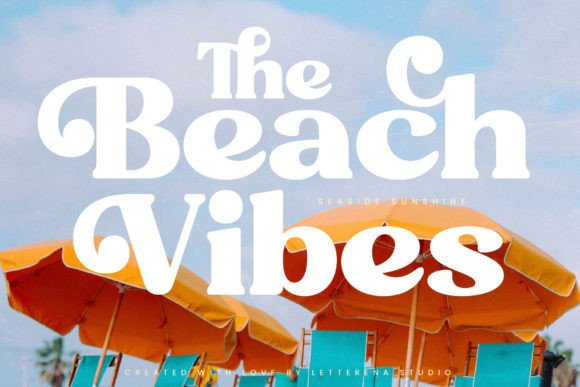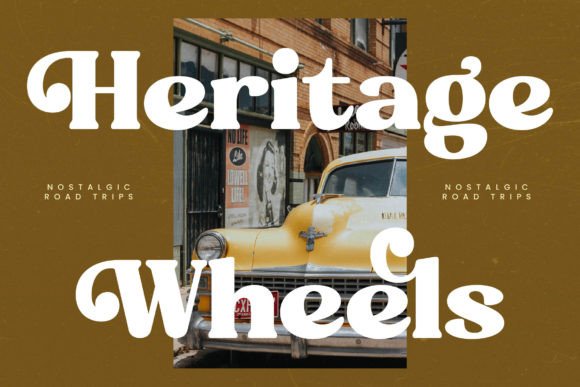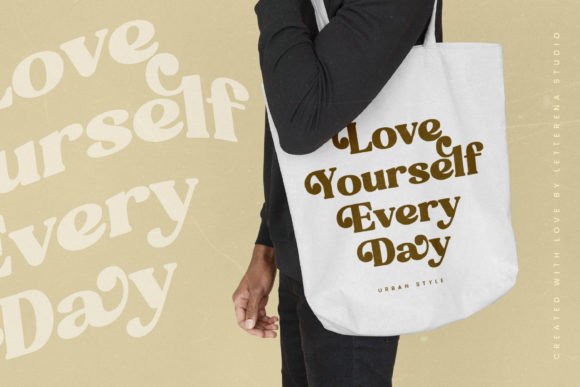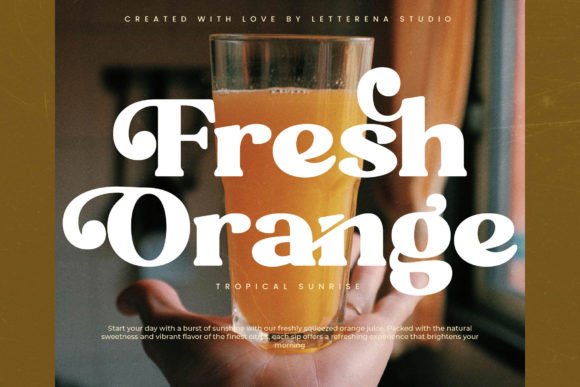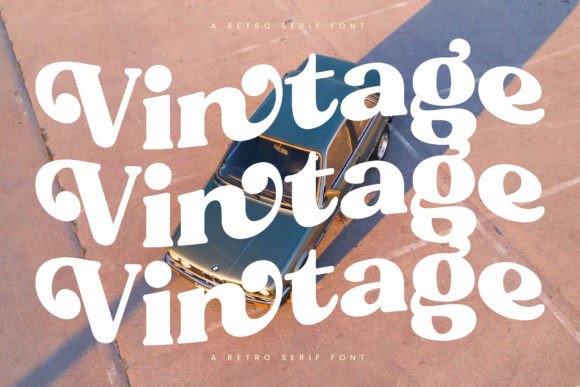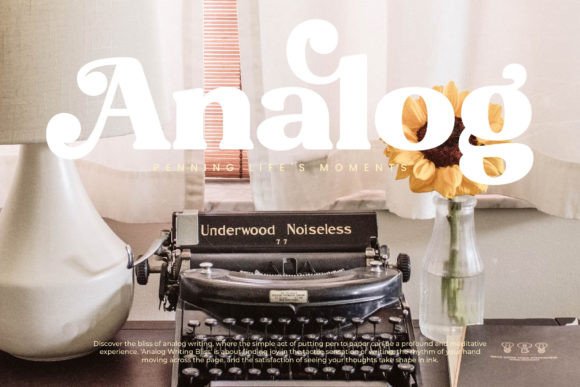
Introducing Angelic Pearl: The Ultimate Retro Serif Font for Luxury Projects
Are you a designer or crafter looking for a font that exudes luxury and sophistication? Look no further than Angelic Pearl, a stunning retro serif font from Letterena. This beautiful font is perfect for a wide range of projects, from logos and branding to homeware designs, product packaging, and more.
What is Angelic Pearl?
Angelic Pearl is a luxury serif font that boasts a unique retro aesthetic. Its elegant lines, intricate details, and classic serif structure make it an ideal choice for designers and crafters who want to add a touch of sophistication to their projects. Whether you’re working on a logo, brochure, or product packaging, Angelic Pearl is sure to impress.
Key Features of Angelic Pearl
- Retro Serif Design: Angelic Pearl features a classic serif design with a retro twist, making it perfect for projects that require a vintage or nostalgic feel.
- Luxury Aesthetic: This font is designed to exude luxury and sophistication, making it ideal for high-end branding, packaging, and marketing materials.
- Versatile: Angelic Pearl can be used for a wide range of projects, from logos and branding to homeware designs, product packaging, and more.
- Elegant Lines and Details: The font features elegant lines, intricate details, and a classic serif structure that adds a touch of sophistication to any project.
Angelic Pearl is a versatile font that can be used by designers and crafters for a wide range of projects. Here are some ideas to get you started:
- Logos and Branding: Use Angelic Pearl to create a luxurious logo or branding materials that exude sophistication and elegance.
- Homeware Designs: Add a touch of luxury to your homeware designs, such as ceramics, textiles, and paper products.
- Product Packaging: Elevate your product packaging with Angelic Pearl, perfect for high-end products that require a luxurious feel.
- Mugs and Drinkware: Create beautiful mugs, tumblers, and other drinkware with Angelic Pearl.
- T-Shirts and Apparel: Use Angelic Pearl to create stunning t-shirts, tote bags, and other apparel.
- Book Covers and Stationery: Add a touch of luxury to your book covers, journals, and stationery with Angelic Pearl.
Why Choose Angelic Pearl?
There are many fonts available, but Angelic Pearl stands out for its unique retro serif design and luxurious aesthetic. Here are some reasons why you should choose Angelic Pearl for your next project:
- Unique Design: Angelic Pearl features a unique retro serif design that sets it apart from other fonts.
- High-Quality: This font is designed to deliver high-quality results, with elegant lines and intricate details.
- Versatile: Angelic Pearl can be used for a wide range of projects, making it a great addition to any designer’s or crafter’s toolkit.
- Easily Readable: Despite its intricate details, Angelic Pearl is easily readable, making it perfect for body text and headlines.